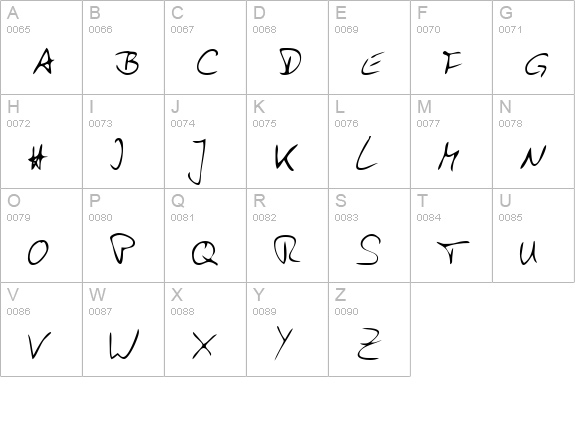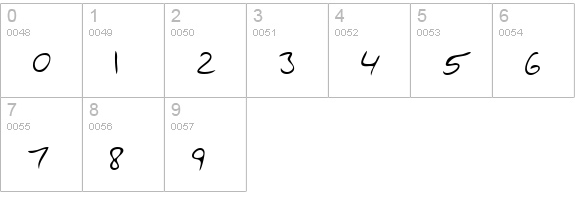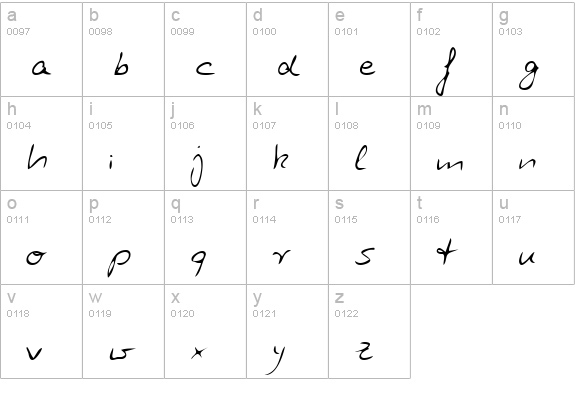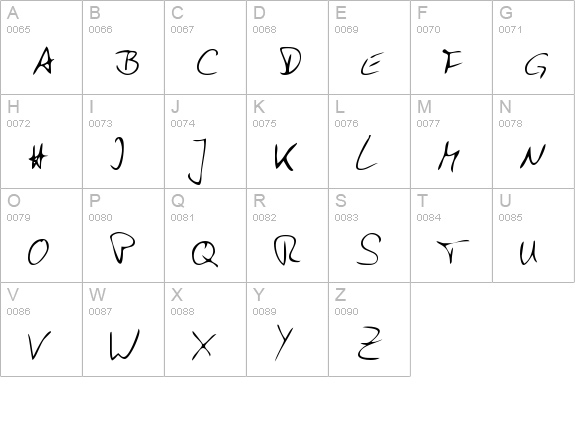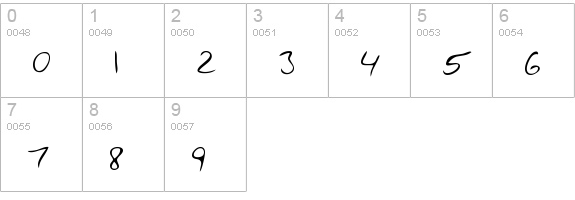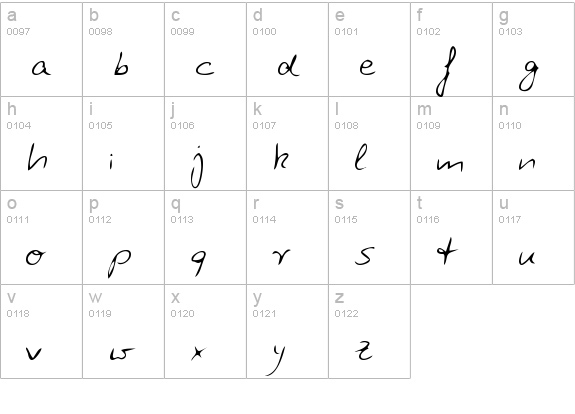
GlennsHand Regular Font Details
GlennsHand Regular is the standard, neutral variant in the GlennsHand typeface family \xE2\x80\x94 well suited to general body text, paragraphs, and standard typographic work.